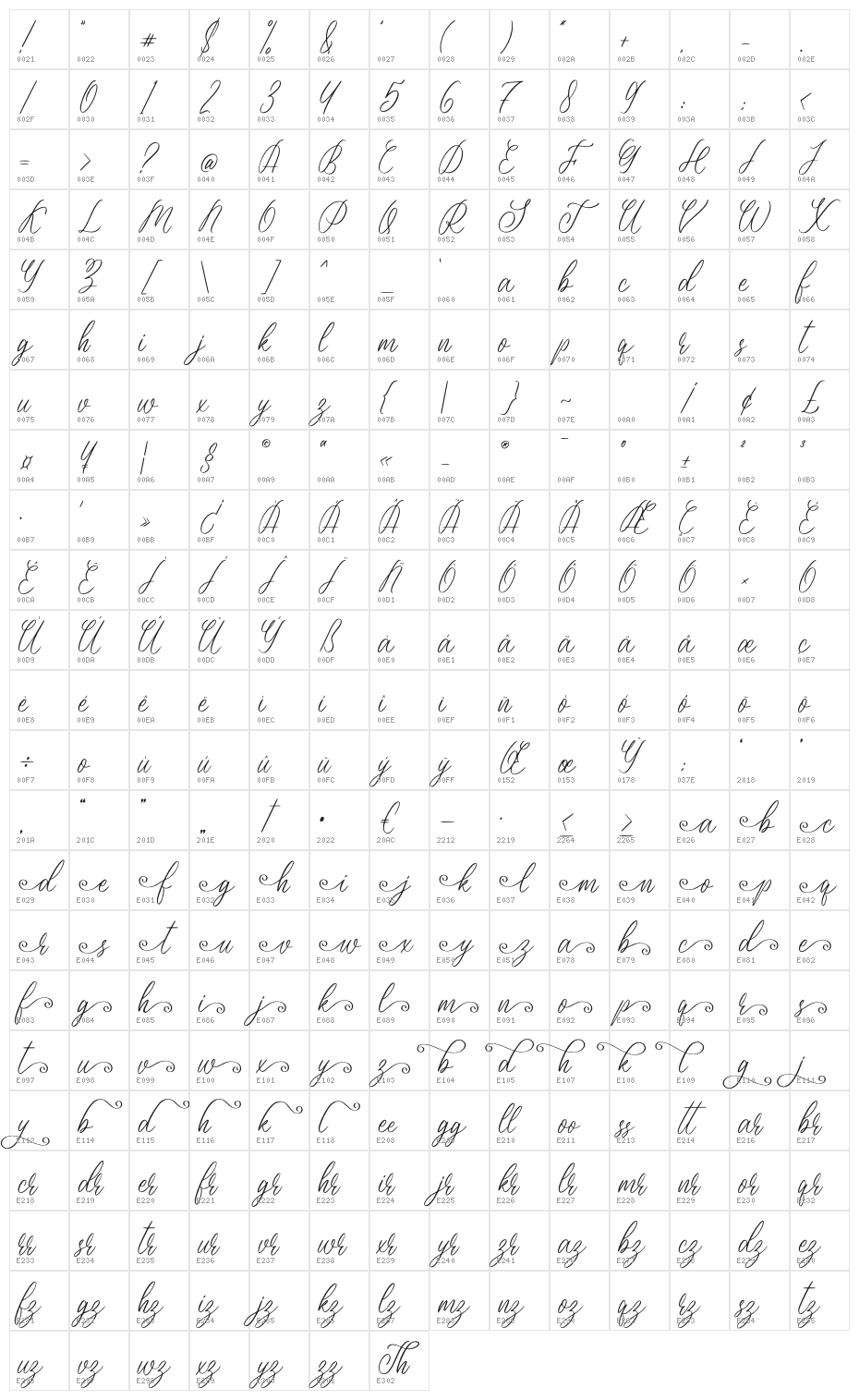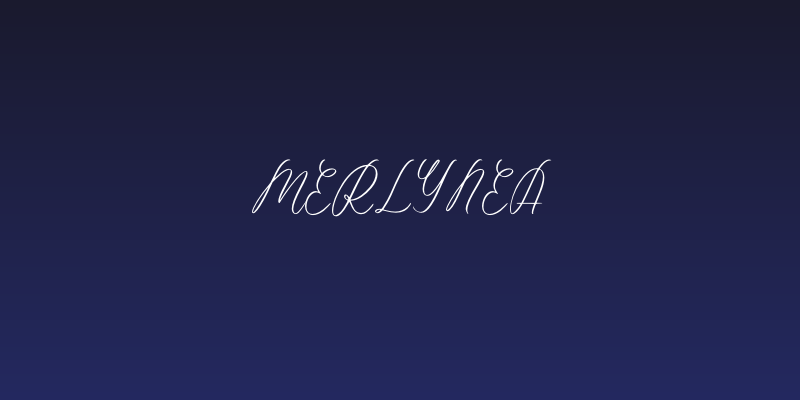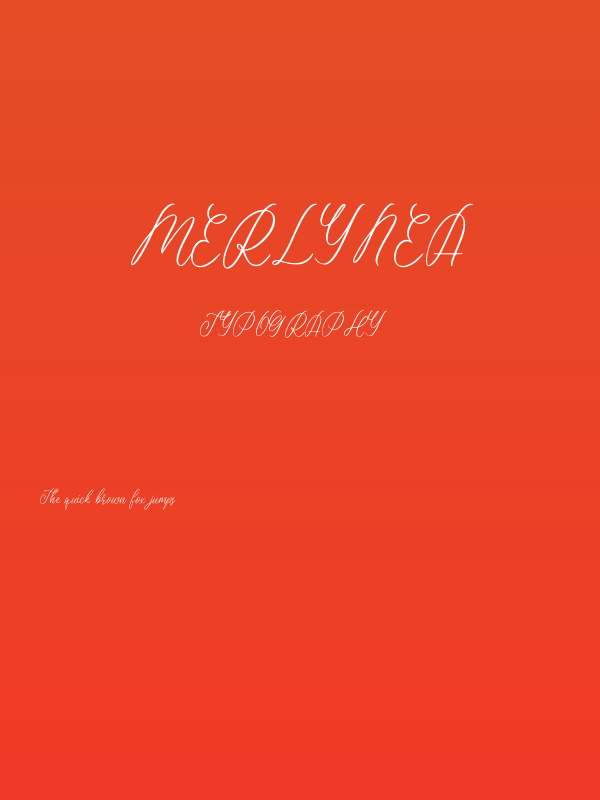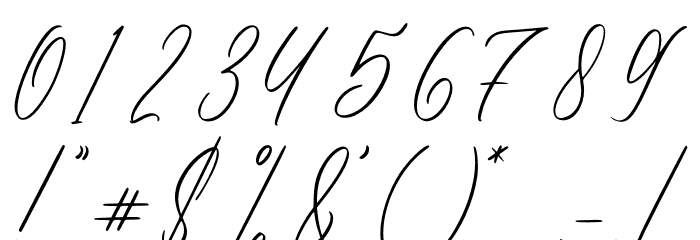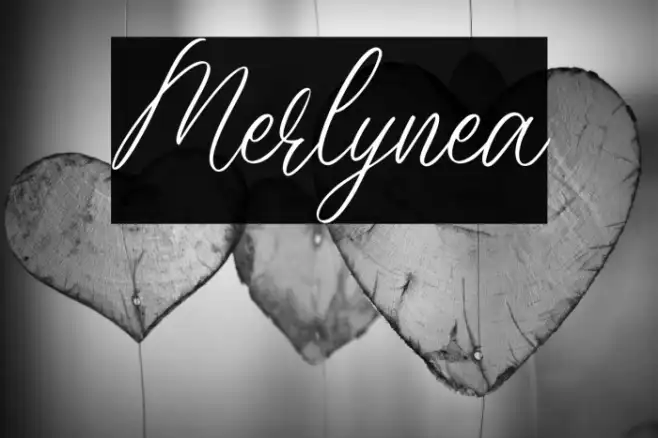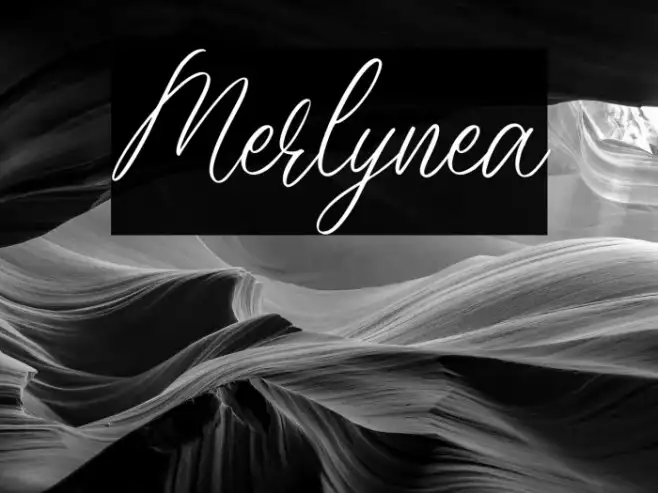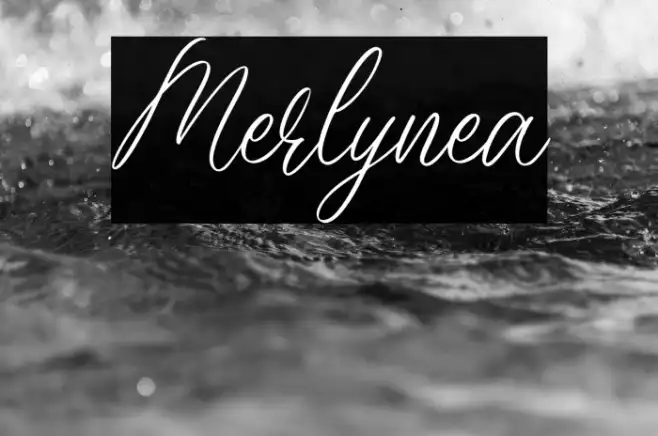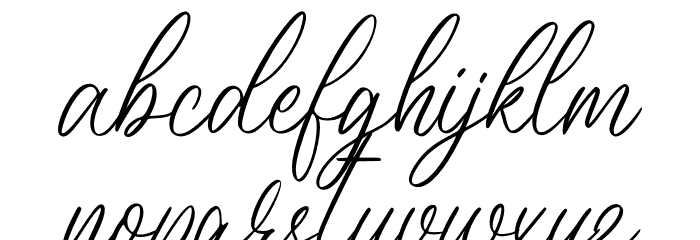
Merlynea Font
Merlynea Description
This elegant script font features a flowing, cursive style with smooth, continuous strokes that mimic the fluidity of handwriting. The uppercase letters are ornate and slightly larger, providing a graceful contrast to the more understated lowercase letters. Each character is meticulously crafted with delicate curves and loops, giving it a sophisticated and romantic feel. The numerals and special characters maintain the same flowing aesthetic, ensuring consistency across all text. This font is perfect for projects that require a touch of elegance and personal flair.